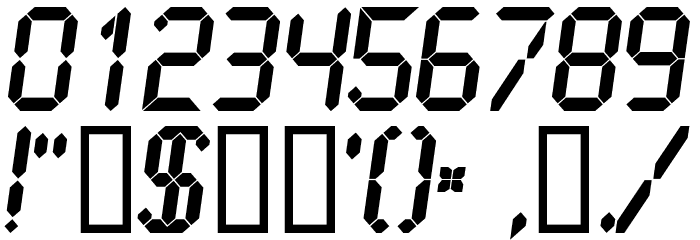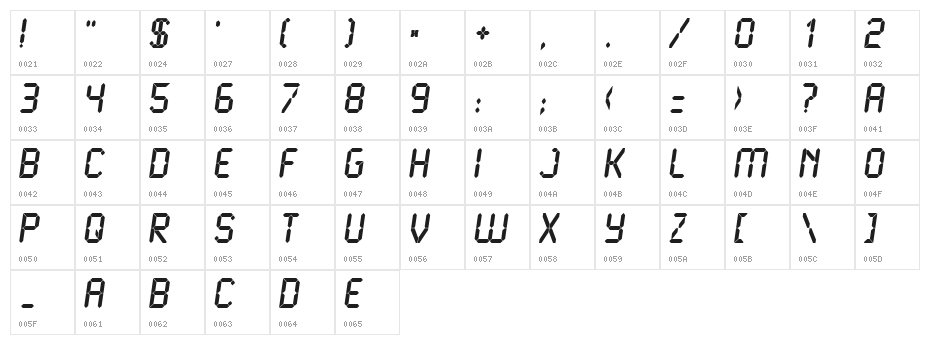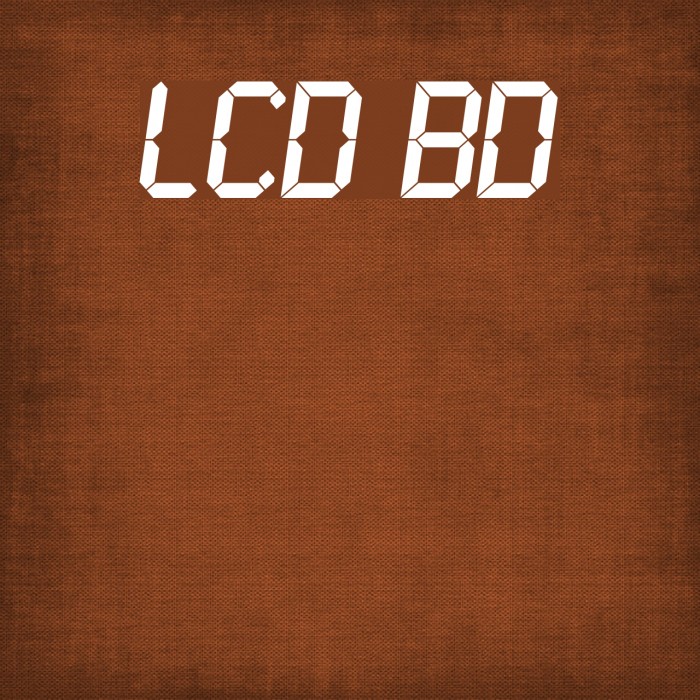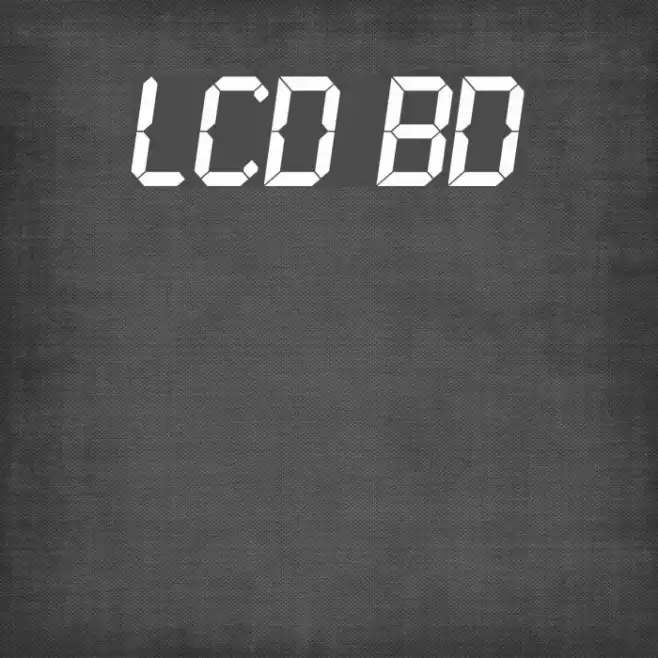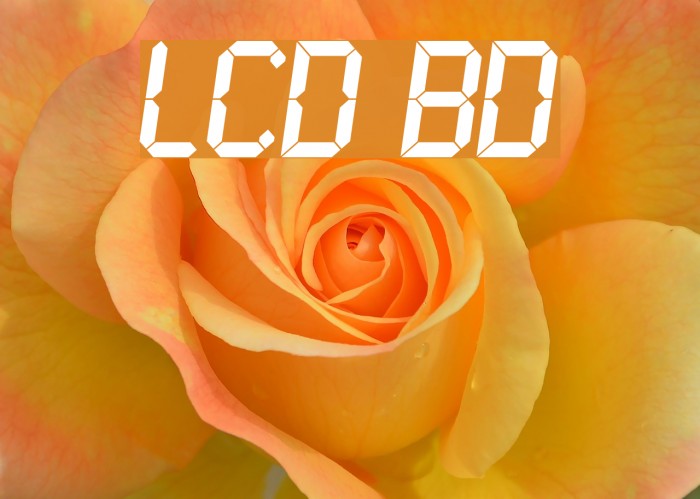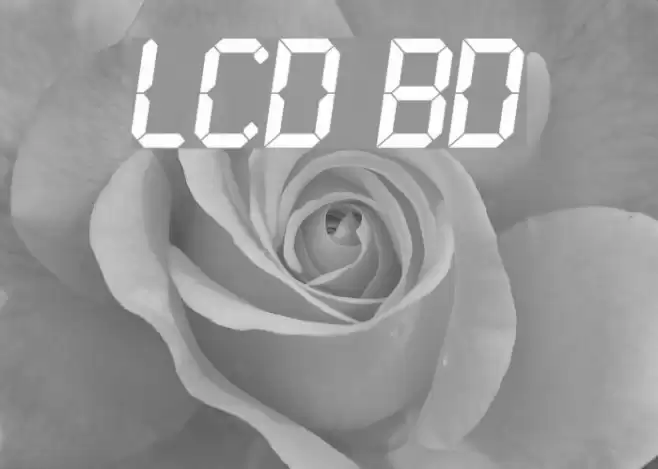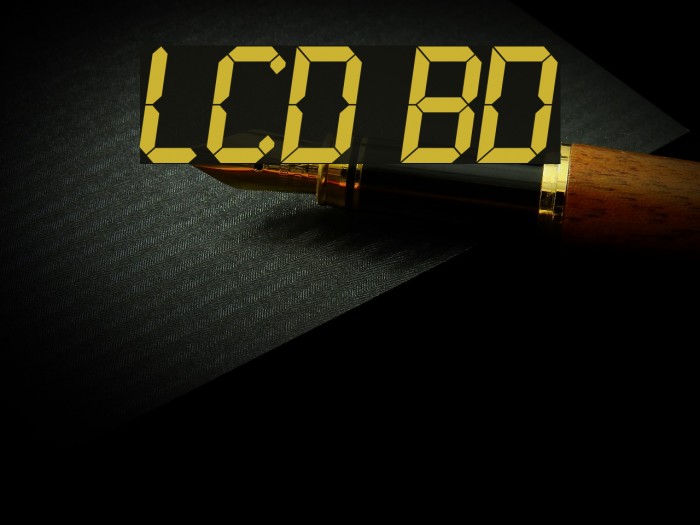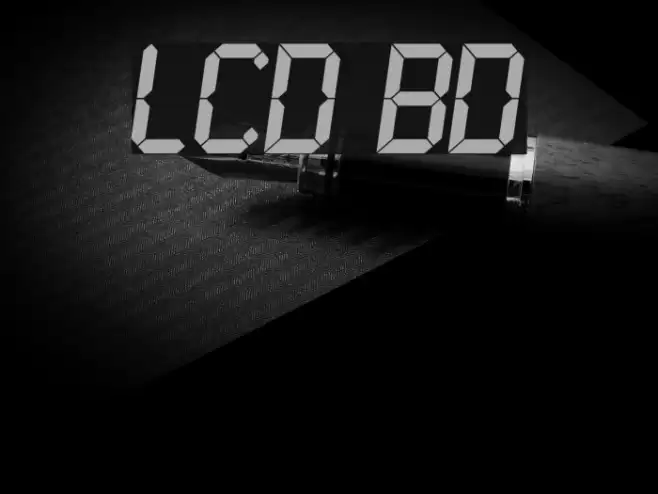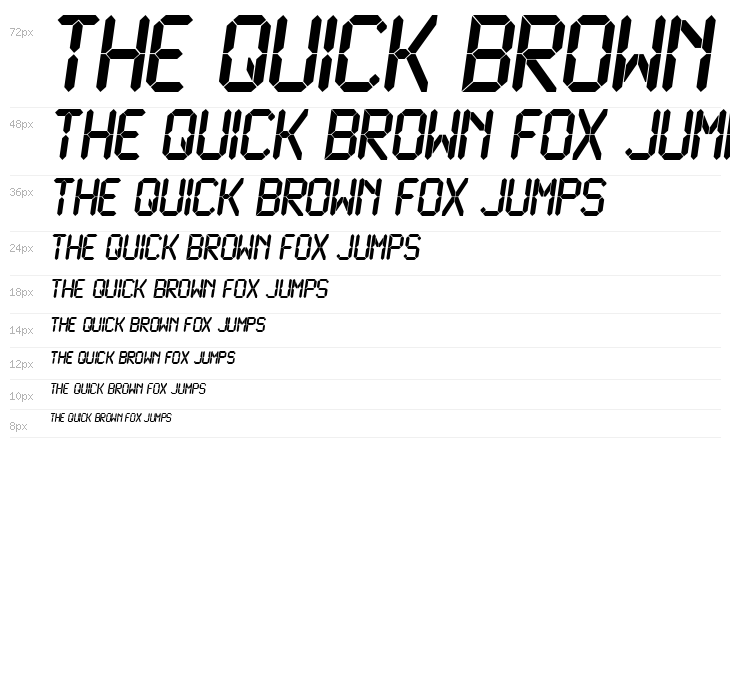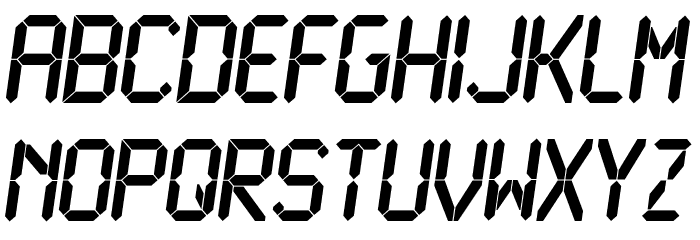
LCD Bold Font
LCD Bold Description
This font mimics the appearance of digital LCD displays, characterized by its segmented, geometric style. Each character is composed of straight lines and angles, creating a distinct, futuristic look reminiscent of digital clocks and calculators. The uppercase and lowercase letters, as well as numbers, maintain a consistent structure, emphasizing clarity and readability. The font's design is highly uniform, with each character appearing as if constructed from a series of connected segments. This gives it a mechanical and precise aesthetic, suitable for conveying a modern, technological feel.
| Use Case | Headlines, Logos, Digital displays |
| Proposed Projects | Ideal for digital interfaces, tech-themed designs, electronic device displays, and futuristic branding. |